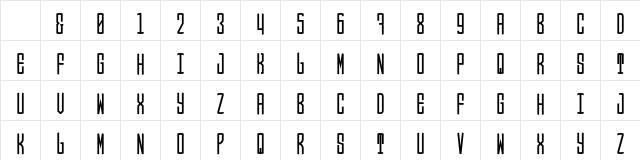
Complete Circle Monogramm Middle glyph index. Displaying only characters natively supported by Circle Monogramm Middle font.
Circle Monogramm uses fixed-width spacing throughout, giving it the structured, systematic character associated with coding environments and technical documentation.